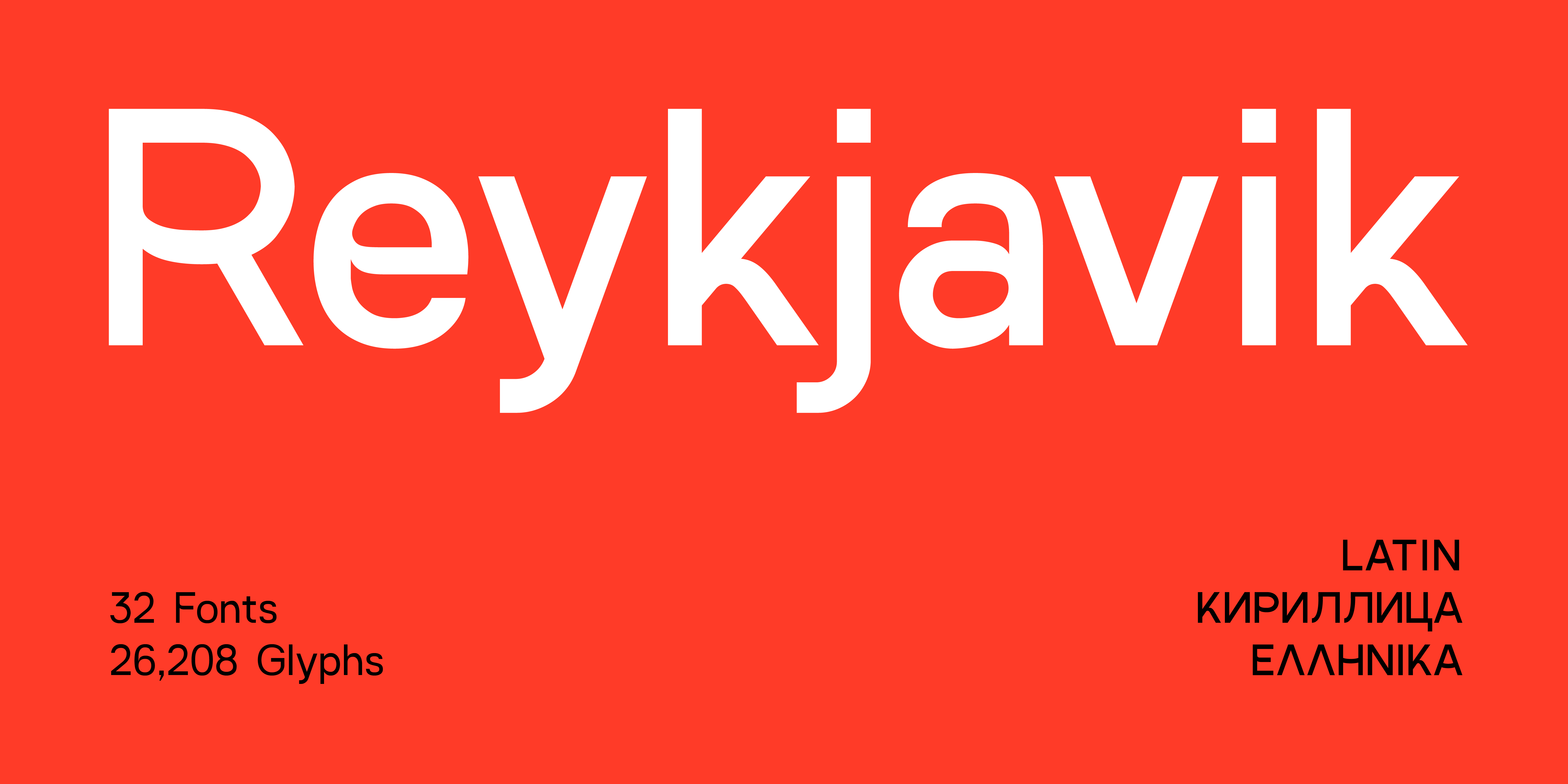
SK Reykjavik Font Free Download is a modern and minimalist typeface inspired by Scandinavian design principles. Its clean lines and geometric structure make it perfect for branding, logos, posters, editorial layouts, and website headers. This versatile font brings a professional, sleek look to any project, balancing simplicity with a bold visual impact.
Featuring uppercase, lowercase, numbers, and essential punctuation, SK Reykjavik Font Free Download offers flexibility for a wide range of design applications. Its contemporary style works seamlessly in both digital and print media, making it a favorite among designers who value clarity and elegance. Whether you're creating product packaging, business presentations, or social media graphics, this font enhances readability while maintaining a strong design presence.
Elevate your creative work with SK Reykjavik Font Free Download and enjoy the sophisticated, clean aesthetic it brings to your designs. Perfect for modern branding, minimalist layouts, and high-end visuals, this font is a must-have for your typography collection.